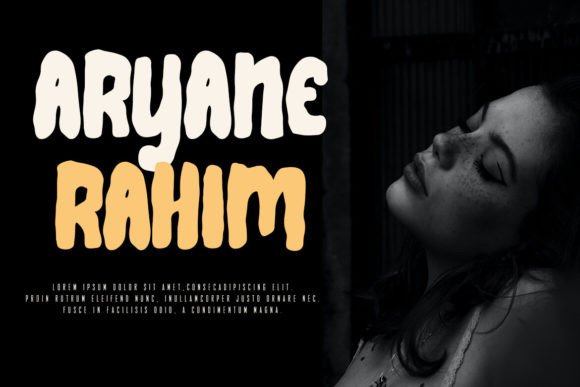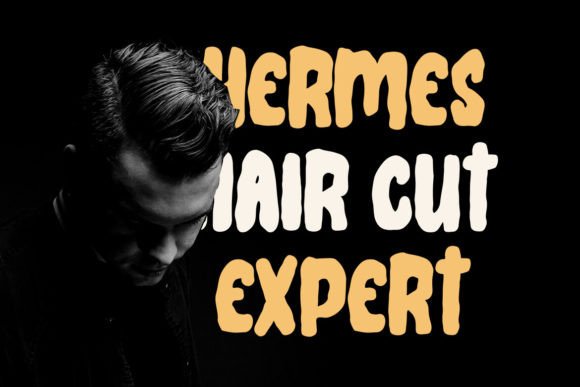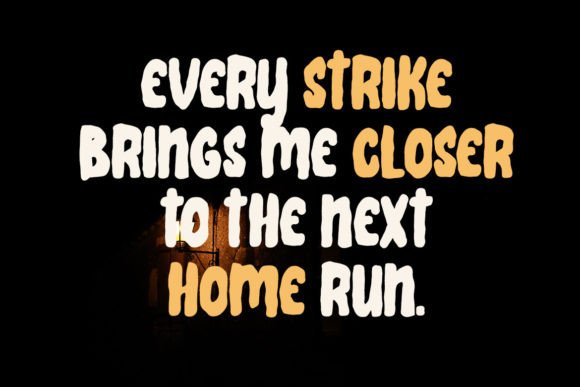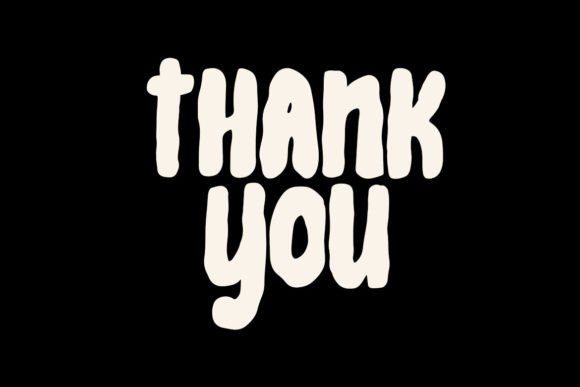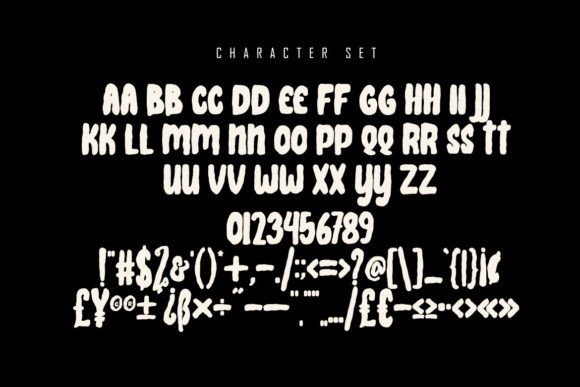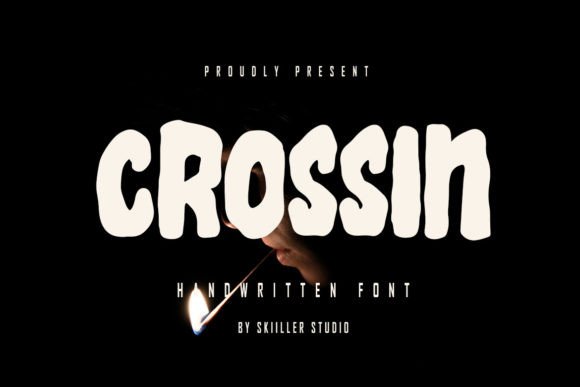
Introducing Crossin Font: Elevate Your Designs with a Modern and Brushed Handwritten Style
In the world of typography, fonts play a crucial role in conveying the tone and personality of a brand or design. For designers and crafters looking to add a touch of urban sophistication to their work, the Crossin Font is an excellent choice. This modern and brushed handwritten font is specifically crafted to give your headlines and logotype projects a stylish edge.
The Characteristics of Crossin Font
Crossin Font reads as strong, confident, and dynamic, making it perfect for designers who want to create a lasting impression. Its unique blend of modern and handwritten elements gives it a distinctive look that sets it apart from other fonts. With Crossin, you can add tons of urban character to your designs, making it ideal for projects that require a bold and edgy aesthetic.
Key Features of Crossin Font
- Modern and Brushed Handwritten Style: Crossin Font boasts a fresh and contemporary look, with a brushed handwritten style that adds a touch of elegance to your designs.
- Strong and Confident: The font’s bold and dynamic appearance makes it perfect for headlines and logotype projects that require a strong and confident look.
- Urban Character: Crossin’s unique design elements give it an urban feel that’s perfect for designers who want to add a touch of city sophistication to their work.
- Versatile: Crossin Font is versatile and can be used for a wide range of design projects, from branding and advertising to packaging and digital media.
Why Choose Crossin Font?
With so many fonts available, why choose Crossin? Here are just a few reasons why designers and crafters love this modern and brushed handwritten font:
- Unique Design: Crossin Font has a distinctive look that’s sure to make your designs stand out from the crowd.
- Ease of Use: The font is easy to read and works well in a variety of design applications, making it a great choice for designers of all skill levels.
- High-Quality: Crossin Font is a high-quality font that’s designed to deliver exceptional results, whether you’re working on a print or digital project.
How to Use Crossin Font in Your Designs
- Use it for Headlines and Logos: Crossin Font is perfect for headlines and logotype projects, but it can also be used for body text and other design elements.
In conclusion, Crossin Font is a modern and brushed handwritten font that’s perfect for designers and crafters looking to add a touch of urban sophistication to their work. With its strong and confident appearance, unique design elements, and versatility, Crossin is an excellent choice for a wide range of design projects. Whether you’re working on a branding project, creating a logo, or designing a digital media campaign, Crossin Font is sure to deliver exceptional results.